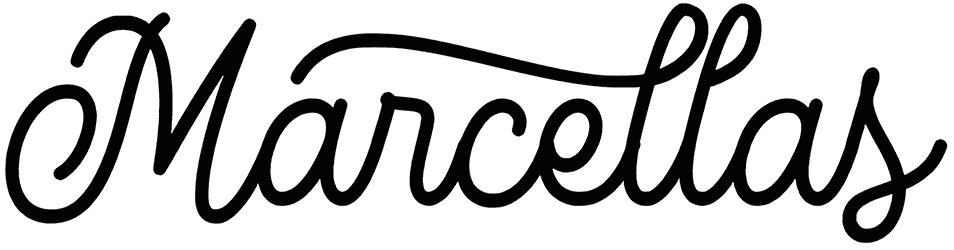
Mattdoy Font
See the lovely imprints of Mattdoy in your text once and it’ll become your favorite swirly font of all time. There are also playful ligatures in its design, lending a nice fun theme to your lettering, and making sure it sounds friendly enough to reach out to people.
All these fancy details in Mattdoy make it the perfect Christmas font for your postcards, special sales event flyers, themed website design, apparel, unique product packaging for the holiday season, and others.